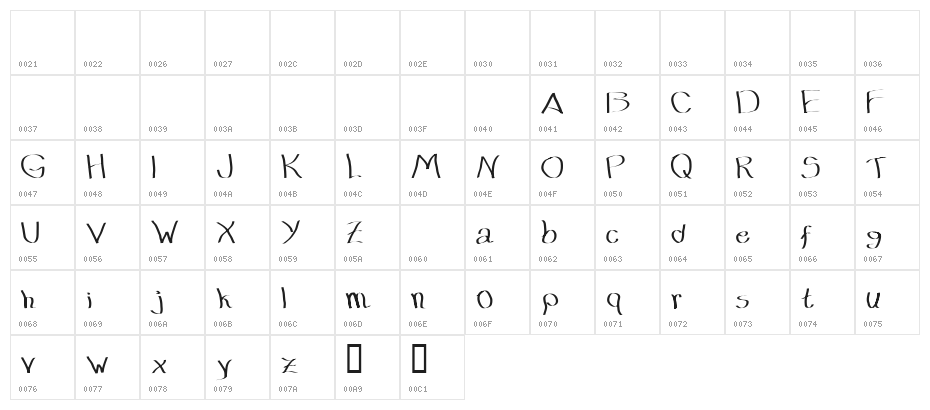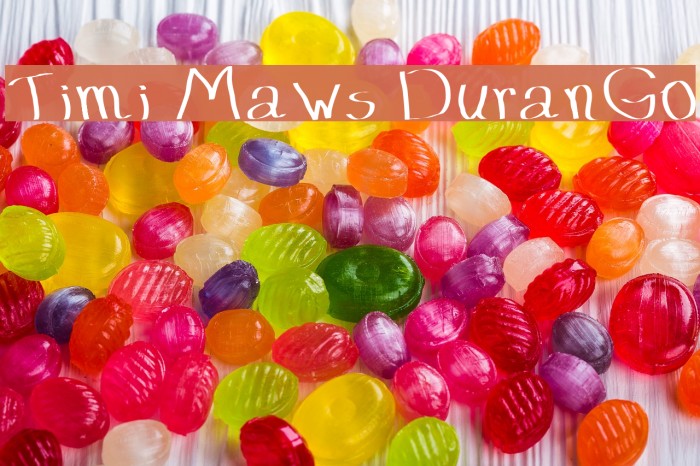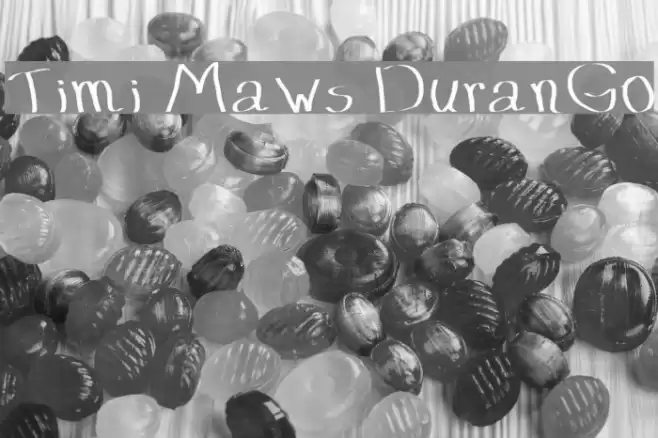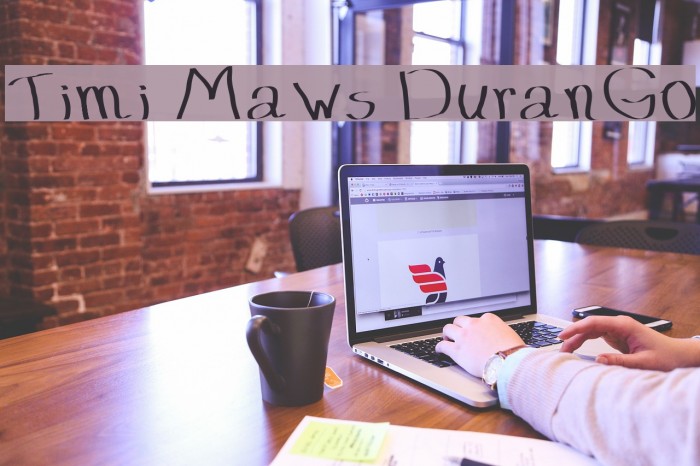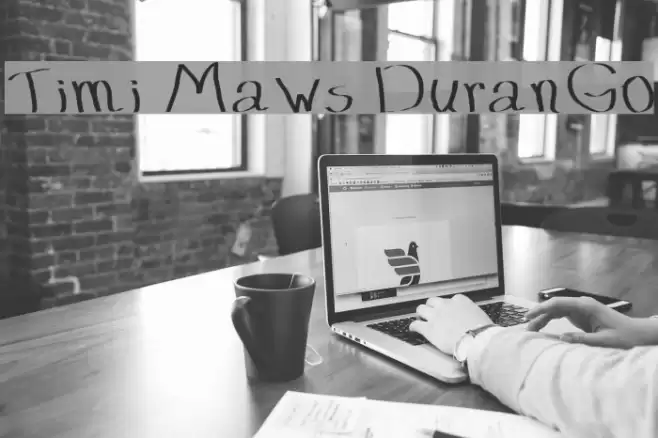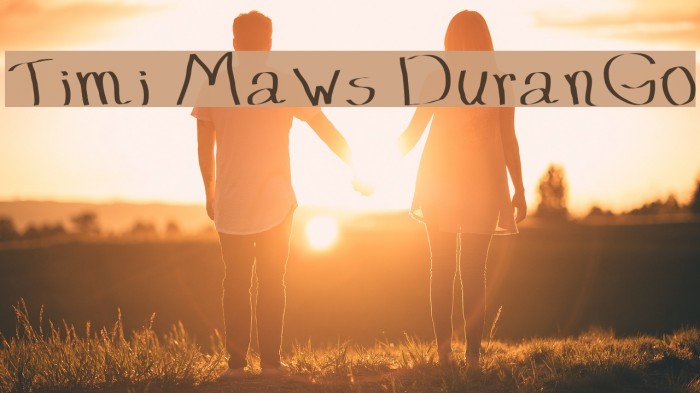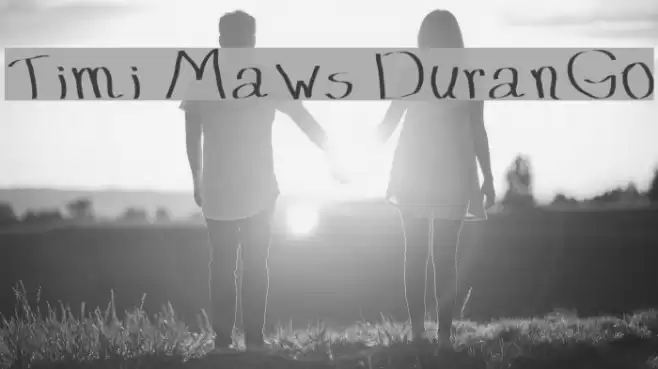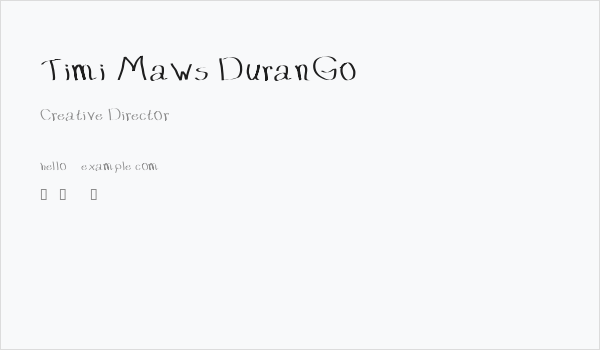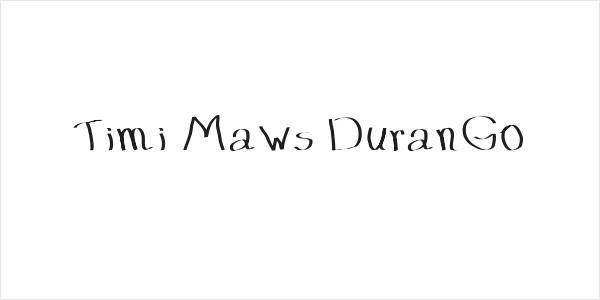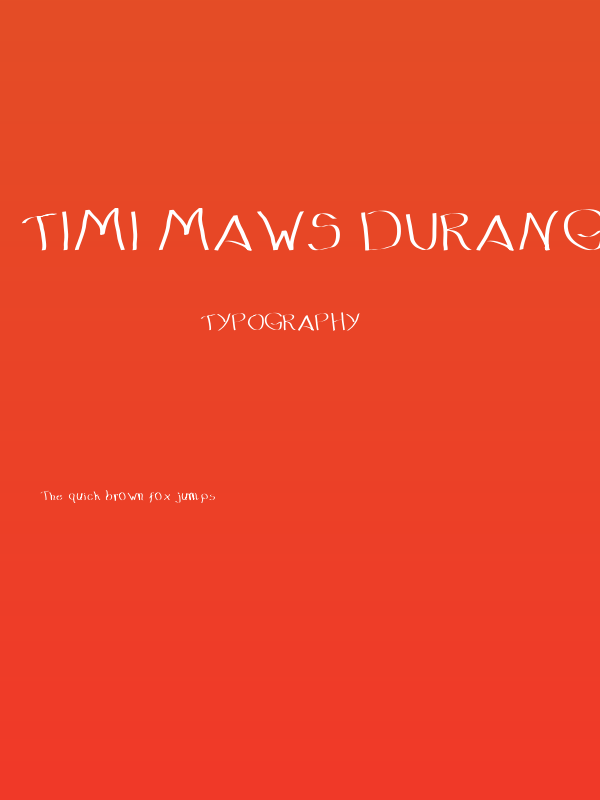
Timi Maws DuranGo Font
Timi Maws DuranGo Description
This font features a unique and artistic style, characterized by its flowing, hand-drawn appearance. The uppercase letters exhibit a whimsical and slightly irregular form, with varying stroke thickness that adds a dynamic and lively feel. The lowercase letters maintain this playful aesthetic, with some characters having exaggerated curves and loops. The numbers and special characters follow the same artistic theme, ensuring consistency throughout the typeface. This font's distinctive style makes it stand out, offering a creative and unconventional look.
| Use Case | Logos, Posters, Creative projects |
| Proposed Projects | Ideal for creative projects such as greeting cards, posters, and artistic branding materials. |